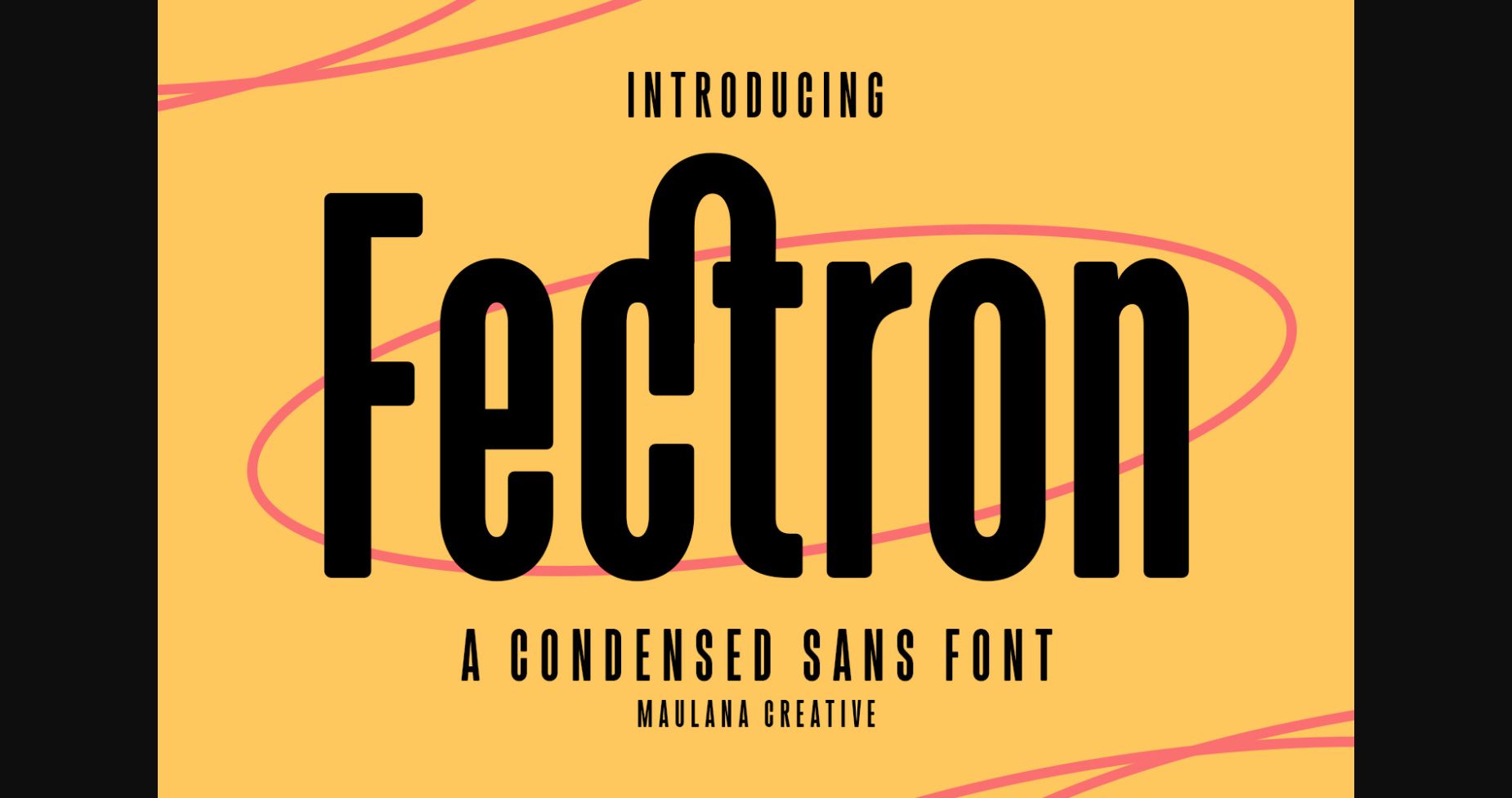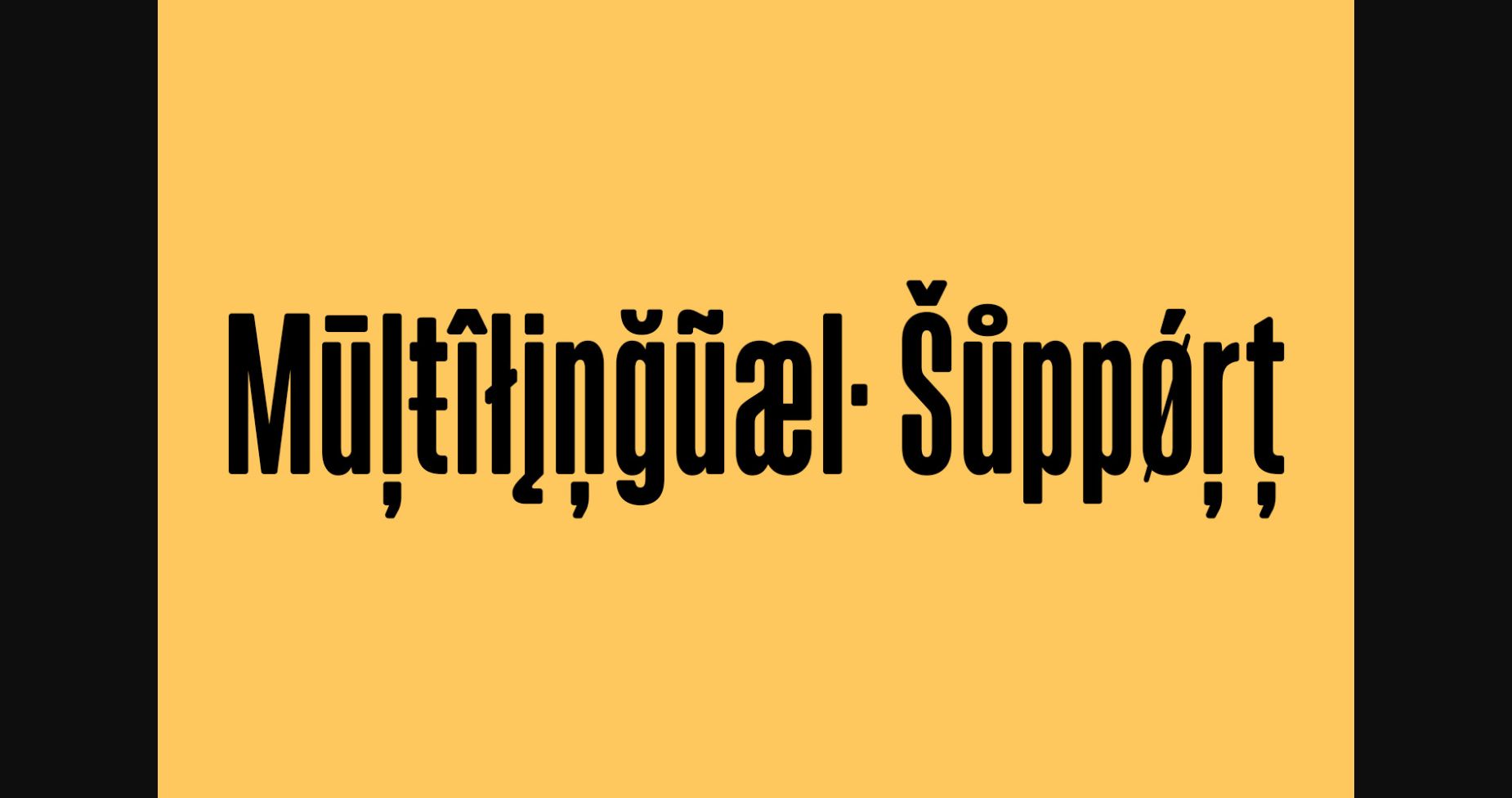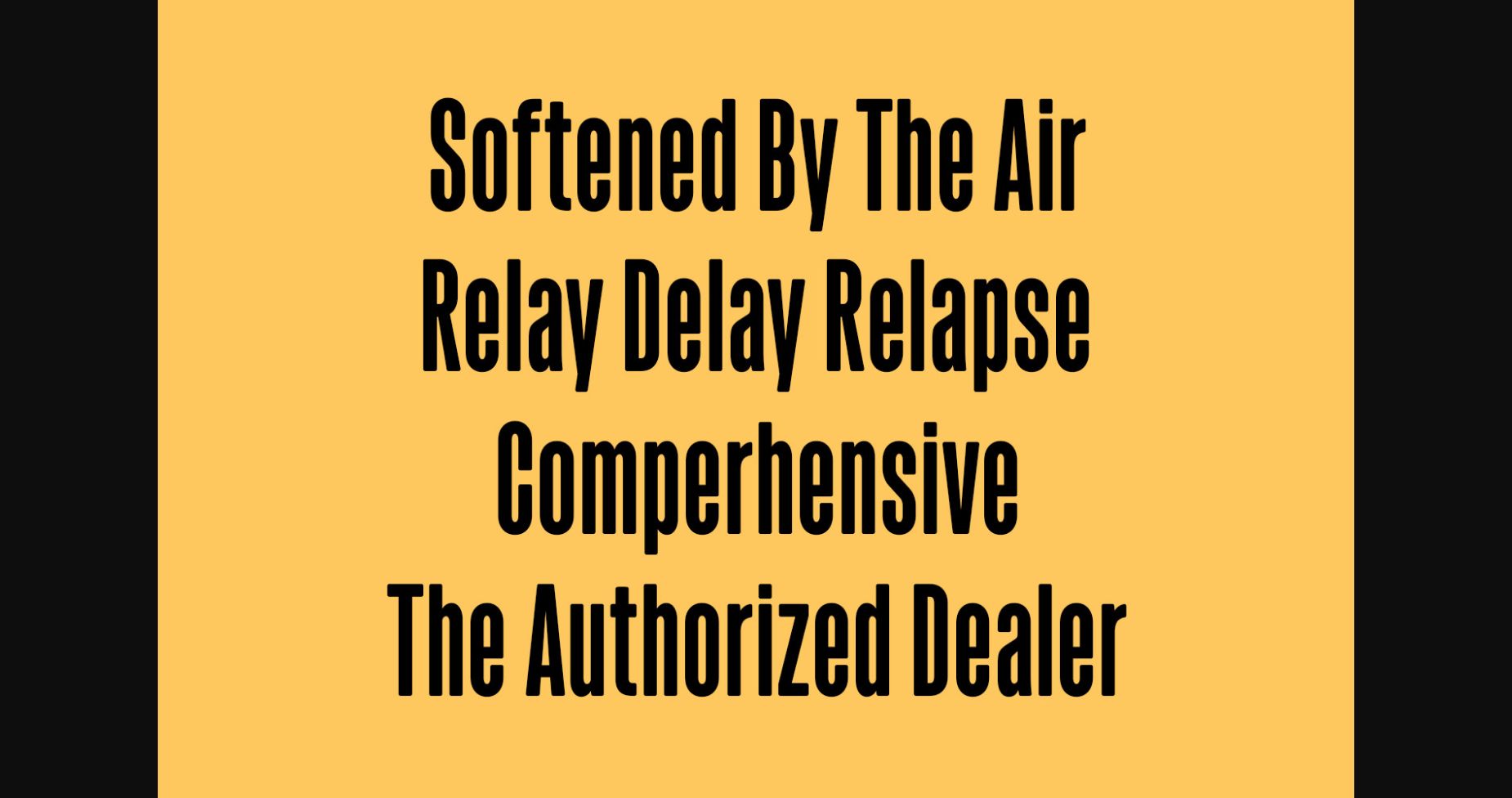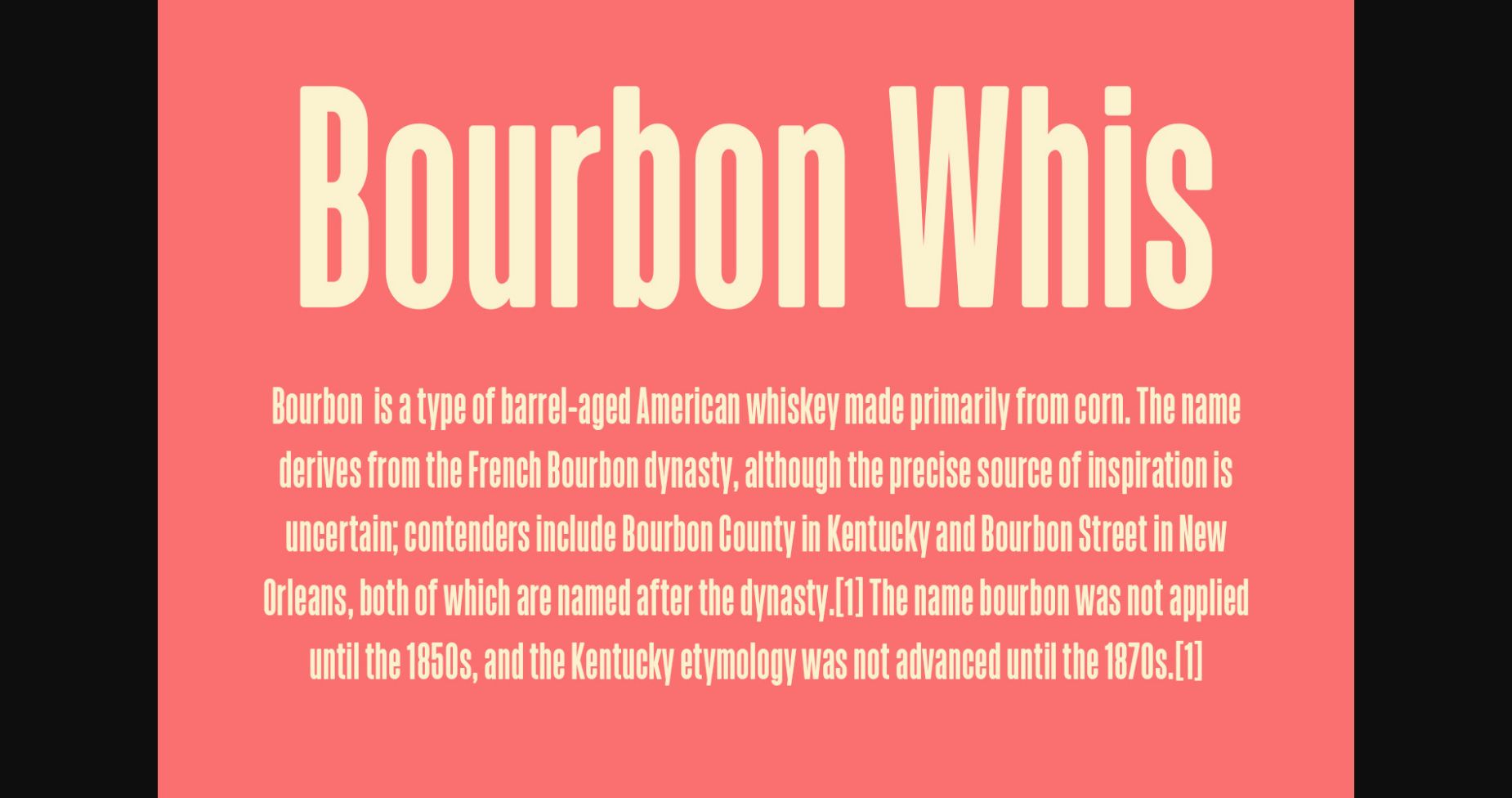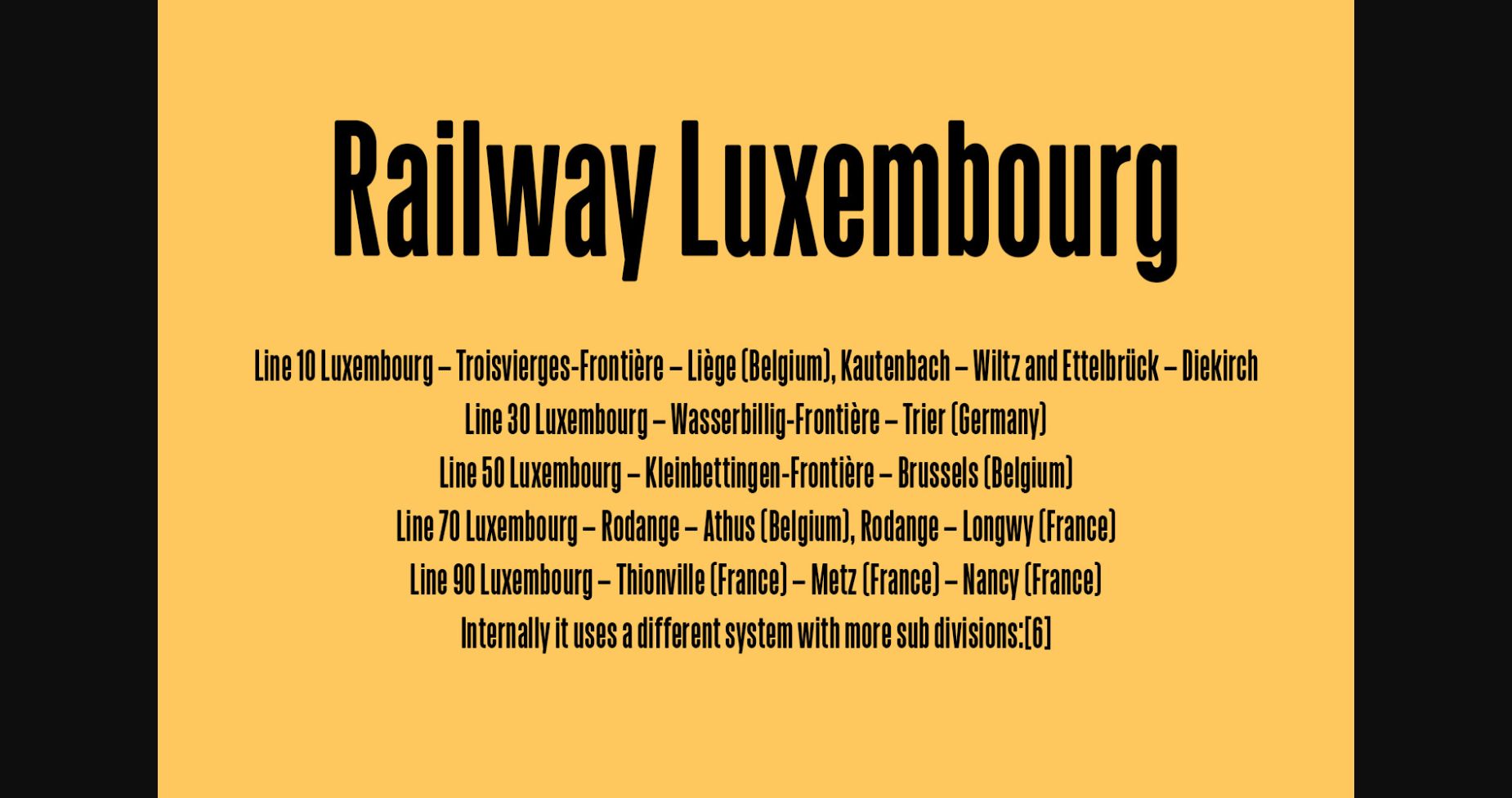
About Fectron Font
Fectron is a semi-round condensed sans serif font. With semi-bold strokes, fun character with a bit of ligature, and alternates to give you extra creative work. Fectron is good for logo design, social media, movie titles, book titles, short text, and even long text, and good for your secondary text with a script or serif. Make stunning work with Fectron!